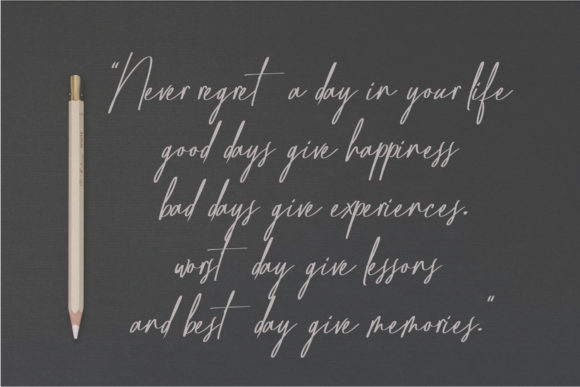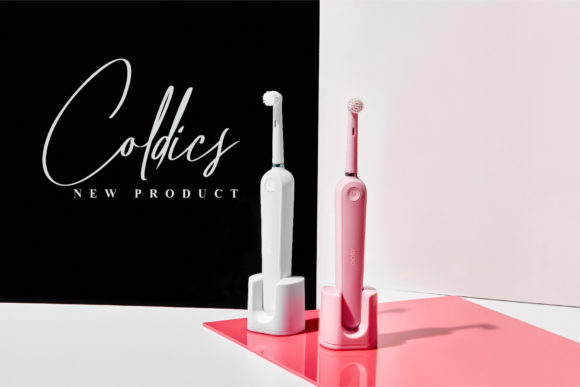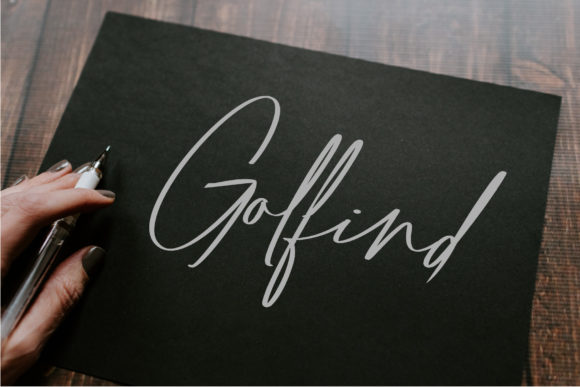
The Golfind Font: A Designer’s New Best Friend
I’ll never forget the time I was working on a project for a client who wanted a modern, sleek look. I had spent hours browsing through font libraries, but nothing seemed quite right. That was until I stumbled upon the Golfind font. Its clean, thin lines and smooth vibe instantly caught my attention, and I knew I had found the perfect fit. In this article, I’ll share my experience with Golfind, its features, and how to make the most of it in your designs.
A First Impression: What I Love About Golfind
Golfind is a simple and sleek script font that has quickly become a staple in my design toolkit. Here are a few things that I love about it:
- ✨ Clean and thin lines: Golfind’s minimalist approach makes it perfect for designs where you want the text to blend into the background.
- ✅ Smooth and elegant: The font’s smooth curves and lines give it a sophisticated feel that’s perfect for high-end designs.
- 💡 Versatile: Golfind works well in a variety of design contexts, from branding and advertising to packaging and web design.
Honest Review: A Few Quirks to Consider
While Golfind is an excellent font, it’s not without its limitations. Here are a few things to keep in mind:
- 🤔 Limited character set: Golfind has a relatively small character set, which may limit its use in certain design projects.
- ⚠️ Not suitable for body text: Due to its thin lines, Golfind may not be the best choice for body text, especially in smaller font sizes.
The Story Behind Golfind
Golfind was designed by a team of typographers who wanted to create a font that was both modern and elegant. Inspired by the simplicity of traditional sign painting, Golfind’s designers aimed to create a font that was both clean and sophisticated. The result is a font that is perfect for designers who want to add a touch of elegance to their work.
| What is Golfind? | Golfind is a simple and sleek script font with a clean, thin, and smooth vibe. |
| Is Golfind suitable for body text? | No, Golfind is not suitable for body text due to its thin lines and limited character set. |
| Does Golfind support OpenType features? | Yes, Golfind supports OpenType features, including glyphs and stylistic alternates. |